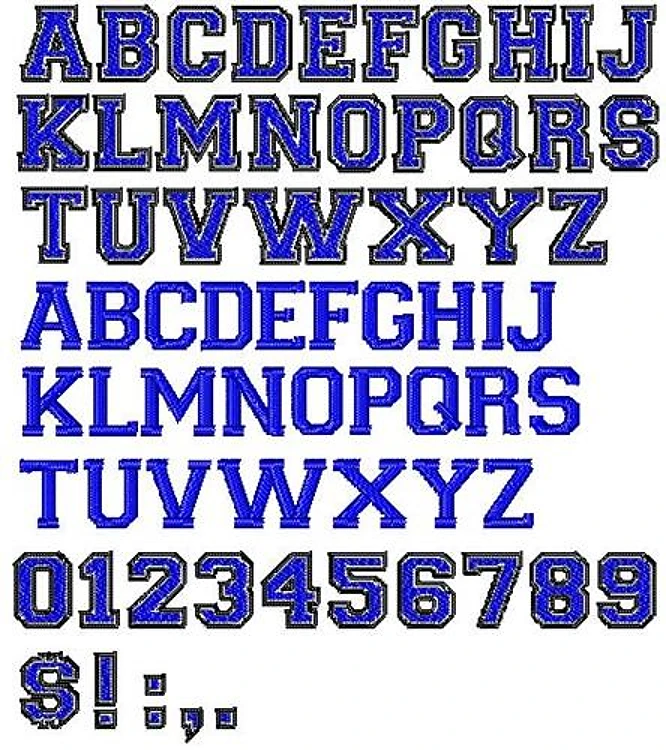
Bella Mia Designs is happy to present Varsity Regular machine embroidery font which has Collegiate varsity outline machine embroidery font with bold letters in blue and white. Ideal for jackets, caps, and tote bags. Available in PES, DST, and 11 other formats. included. If you would like to view more embroidery fonts and alphabets please search our embroidery fonts page.